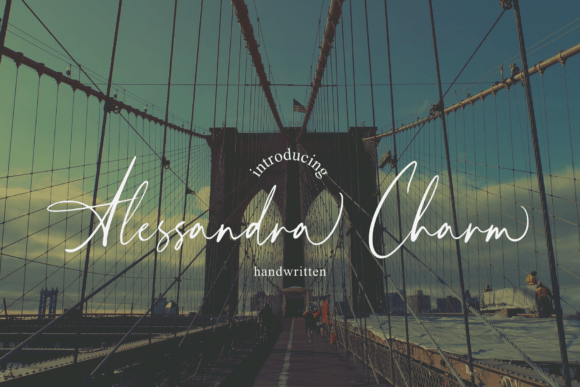
The Perfect Script for Elegant Designs: Introducing Alessandra Charm Font
Have you ever been browsing through a beautifully designed wedding invitation or a luxurious brand brochure and felt an instant sense of awe and admiration for the elegant script font used? For designers, finding the perfect script font can be a game-changer. It’s that moment when all the elements come together, and the design exudes sophistication and refinement.
That’s where Alessandra Charm Font comes in – a beautiful, flowing script font designed to add a touch of luxury and romance to any design project. With its smooth, cursive letterforms and exquisite curves, this font is perfect for creating elegant wedding invitations, branding materials, logo designs, or personalized stationery. Whether you’re a seasoned designer or just starting out, Alessandra Charm Font is a valuable addition to your toolkit.
Alessandra Charm Font Key Features
• Font Family: Alessandra Charm, a script font with elegant and luxurious feel.
• Unique Characteristics: Features a unique blend of classic and modern elements, with intricate flourishes and swashes.
Alessandra Charm Font Review
I recently had the chance to work with the Alessandra Charm Font, and I must say, it’s a mixed bag. Let’s start with what works well.
• ✨ Elegant and feminine feel: The Alessandra Charm Font has a beautiful, whimsical feel that’s perfect for feminine designs, such as wedding invitations, baby shower cards, and other feminine-themed projects.
• ✨ Great for hand-lettering: The font’s flowing lines and organic feel make it ideal for hand-lettering and calligraphy-style designs.
• ✨ Unique and distinctive: The Alessandra Charm Font has a unique, one-of-a-kind feel that sets it apart from more generic fonts.
However, there are some limitations to keep in mind.
• ⚠️ Limited versatility: While the Alessandra Charm Font is perfect for feminine designs, it may not be the best choice for more masculine or formal projects.
• ⚠️ May be too ornate: Some users may find the font’s intricate details and flourishes too ornate or overwhelming, especially at smaller font sizes.
Overall, I think the Alessandra Charm Font is a great choice for designers who are looking for a unique, feminine font for specific projects. However, it may not be the best choice for more general or versatile design work.
Tips for Getting the Most Out of the Alessandra Charm Font
Use the Alessandra Charm Font for elegant and sophisticated designs.
Pair it with a clean and minimalist background to let the font shine.
Experiment with different font sizes and styles to add depth and visual interest to your design.